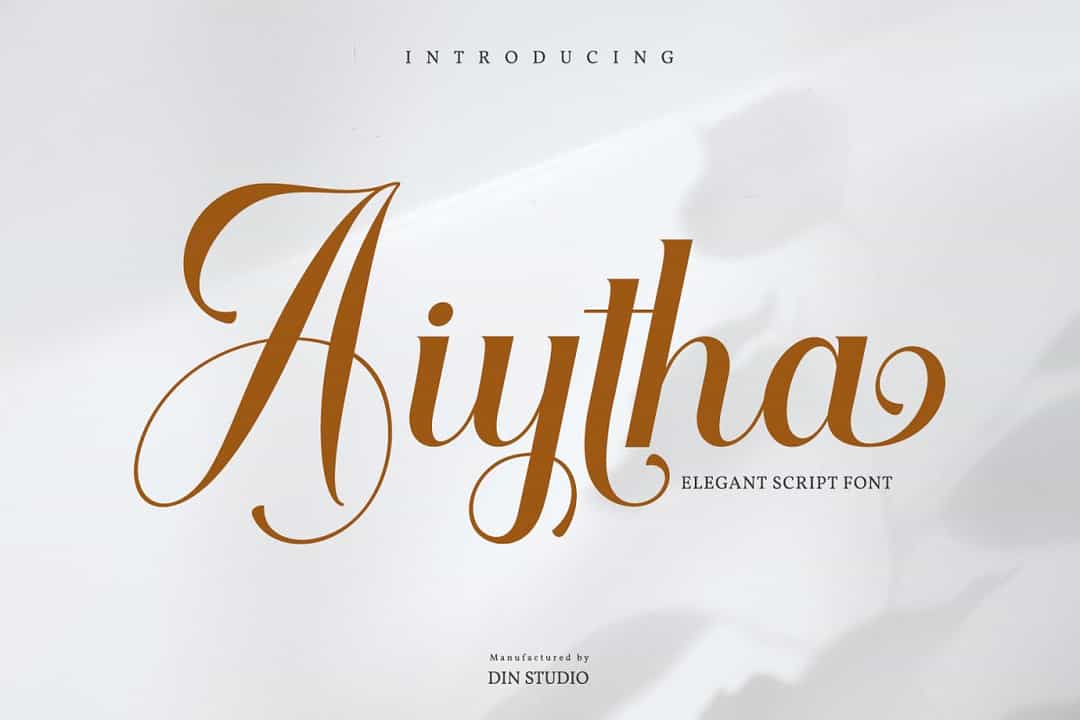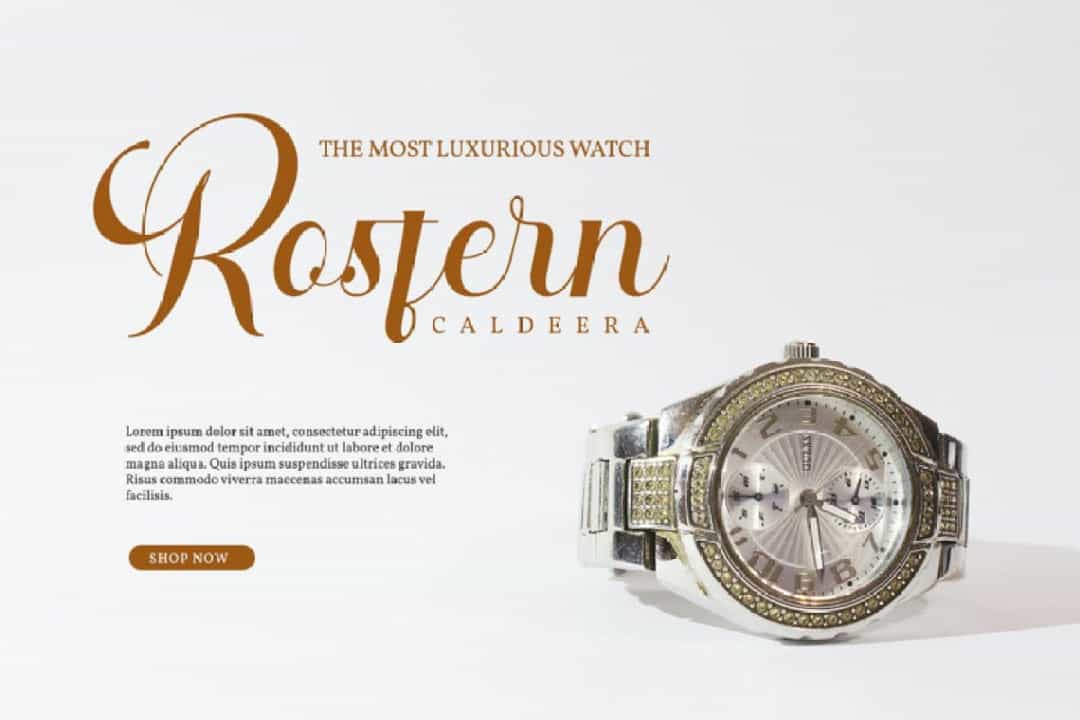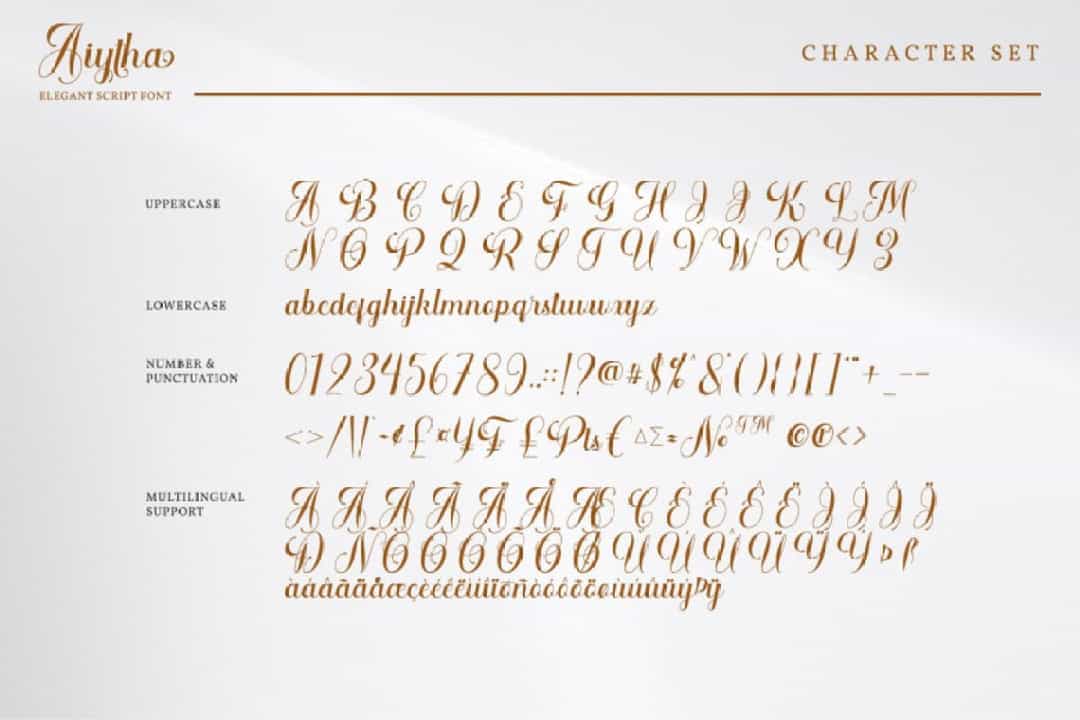
Discover Aithya Elegant Calligraphy Script Font, part of the Calligraphy Script collection—a versatile and unique font perfect for adding a personal touch to your projects. Download it for free and enjoy crafting designs with style, from invitations to social media posts. This font is available exclusively for personal use, giving you the freedom to create without limits. Unlock your creativity with Aithya Elegant Calligraphy Script Font today!
This font can be described as a contemporary calligraphy font. This stunning and elegant font is designed for professional branding of projects; thus, it is perfect for logos, weddings, or quotes.